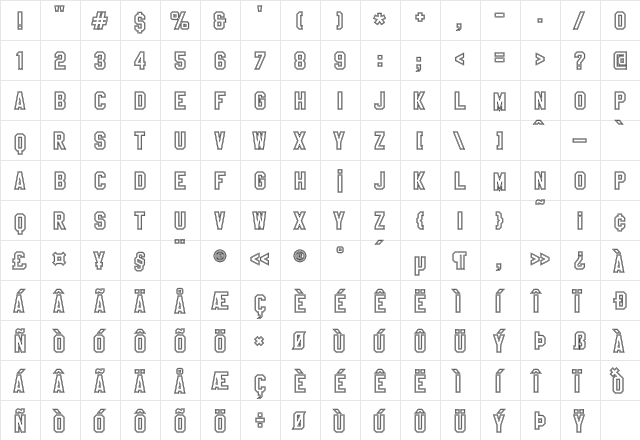
Sablon Up Outline
| Style | Outline |
| Foundry | Youssef Habchi |
Design Context for Sablon Up Typeface
Sablon Up is built around its visual character rather than neutral utility — its distinctive forms are designed to make an impression at display sizes.
Font Pairing: Pair with a clean neutral sans-serif for body copy to let Sablon Up's character lead without overwhelming the composition.
Pro Tip: Use Sablon Up exclusively at display sizes — it was designed to be seen, not read at length. Let a neutral companion handle body copy.